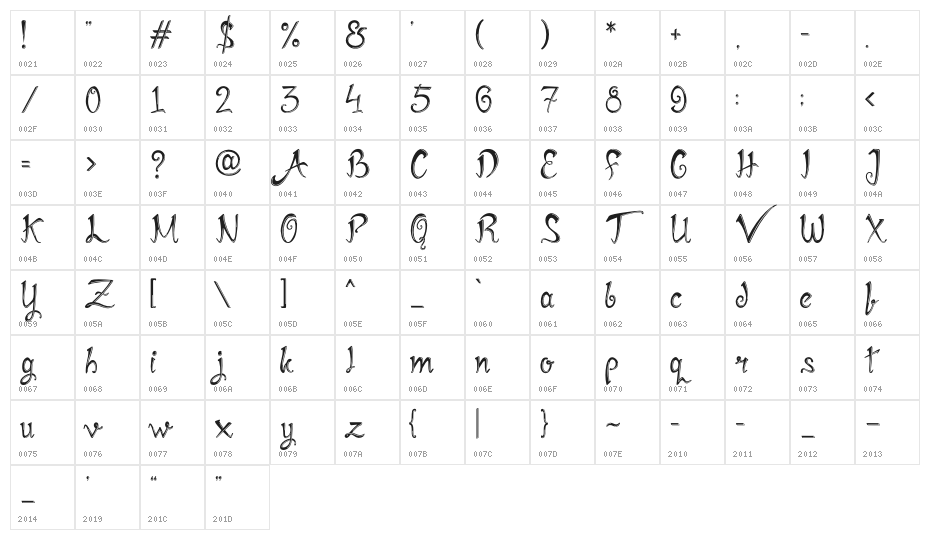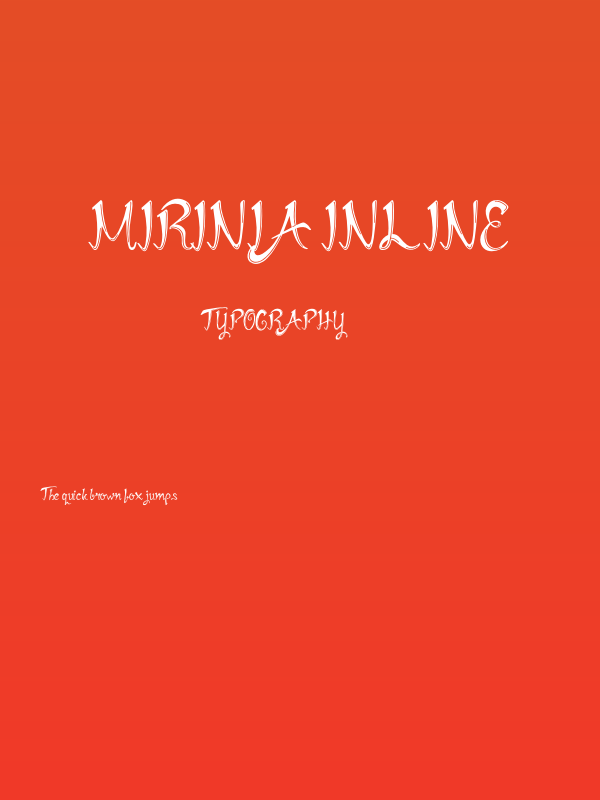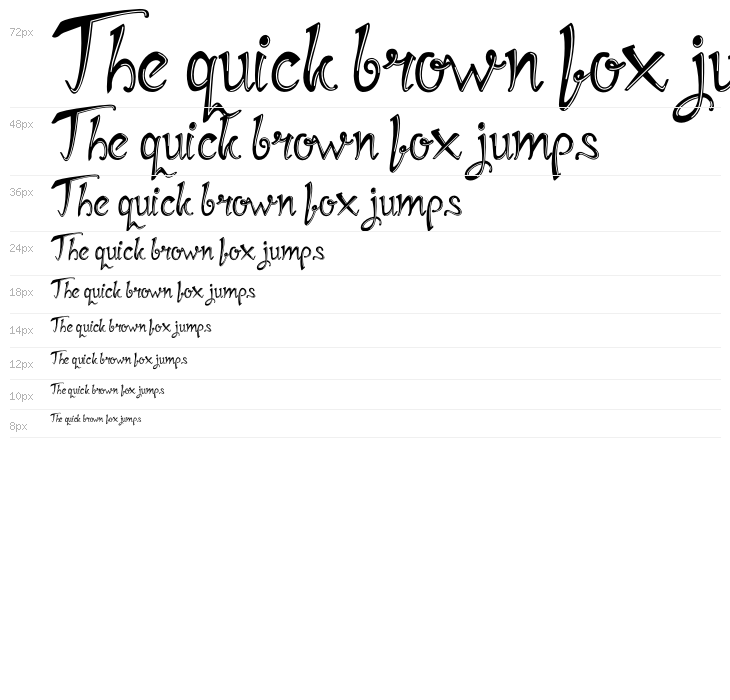
Mirinia Inline Font
Mirinia Inline Description
This font features an elegant and artistic design with a calligraphic flair. The characters are adorned with intricate swirls and flourishes, giving them a whimsical and decorative appearance. The uppercase letters are bold and expressive, while the lowercase letters maintain a consistent style with slightly more subtle embellishments. The numerals are uniquely styled, maintaining the overall artistic theme. Special characters are creatively integrated, adding to the font's charm. The overall design is reminiscent of hand-drawn script, making it ideal for projects that require a touch of sophistication and creativity.
| Use Case | Logos, Headlines, Artistic projects |
| Proposed Projects | Ideal for wedding invitations, greeting cards, artistic posters, and branding materials that require a sophisticated and creative touch. |